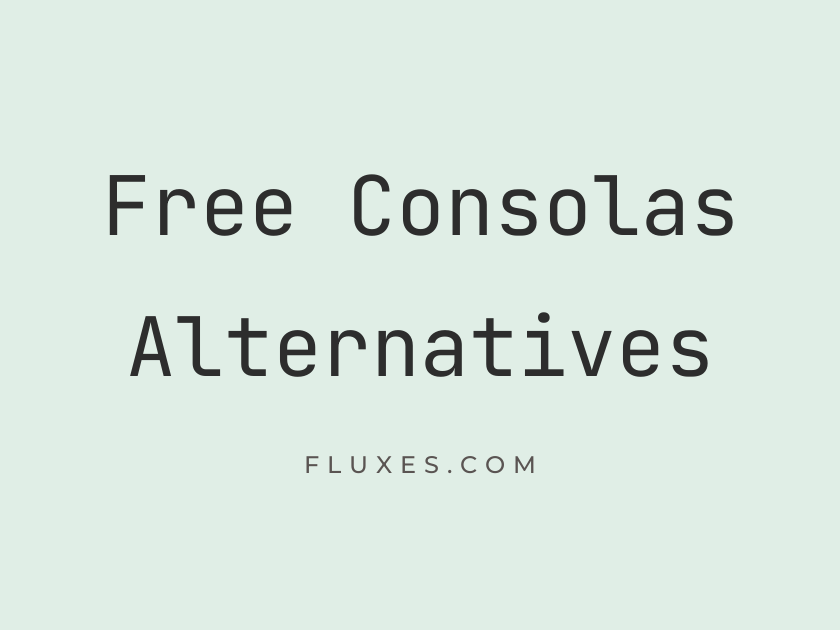
15 Best Free Fonts Alternatives to Consolas
Consolas has been the default fixed-width typeface in Windows code editors and terminals for years, prized for its rounded terminals, generous spacing, and the way it keeps zeros and ones from blurring together at small sizes. It is a Microsoft font, though, which means it is not always licensed for the web, for open-source projects, or for cross-platform tools that need to embed a monospace face freely. The good news is that the monospace category on Google Fonts has matured considerably, and several families now match or exceed Consolas for coding, terminal use, and technical documentation while remaining completely free to download and self-host.
Built by a company that makes IDEs for a living, this face was engineered specifically to reduce eye strain during long coding sessions. The letterforms are slightly taller than average, which opens up vertical rhythm in dense code blocks, and the italics were designed to be genuinely readable rather than just slanted romans. It has quickly become one of the most requested Consolas substitutes among developers switching to Linux or macOS setups.
Fira Code
⚠ Font Specimen: invalid or missing font nameFira Code took the already-solid Fira Mono and added programming ligatures, so arrows, comparison operators, and arrow functions visually merge into single symbols. Not every editor supports ligatures out of the box, so it is worth checking your IDE settings before committing to it project-wide. For teams that do enable them, code reads almost like prose once you get used to the effect.
Source Code Pro
Adobe’s contribution to the monospace space is clean, professional, and a little more restrained than some of the newer geometric options. It pairs naturally with Source Sans Pro or Source Serif Pro in documentation sites, which makes it a practical pick when you need code samples and body text to feel like they belong to the same family.
Part of IBM’s sprawling Plex superfamily, this one carries a slightly technical, engineering-notebook character that suits terminal emulators and developer documentation equally well. The lowercase letters have a touch more personality than most coding fonts, with subtle flares that keep long stretches of text from feeling sterile.
Roboto Mono simply extends the familiar Roboto voice into fixed-width form, which makes it an easy default for Android-adjacent projects or anywhere Roboto is already the body font. It is dependable rather than distinctive, the kind of face that disappears into the work instead of calling attention to itself.
Ubuntu Mono
Distinctive and a little quirky, Ubuntu Mono carries the same rounded, humanist warmth as the rest of the Ubuntu type family. It reads best at larger sizes in terminals and headers; at very small point sizes some of its curves can soften and blur, so test it in your actual terminal before adopting it system-wide.
Inconsolata
One of the earliest breakout stars of open-source monospace design, Inconsolata was built as a refined alternative to the clunky bitmap coding fonts of the early 2000s. Its narrow proportions fit more characters per line than many rivals, which is genuinely useful on smaller laptop screens or split-pane editors.
Cousine
Cousine was designed as a metrically compatible substitute for Consolas itself, matching its character widths closely enough that documents and layouts built around Consolas can swap in Cousine with minimal reflow. That makes it one of the most direct, low-friction replacements on this list for anyone migrating existing files off a licensed font.
PT Mono
Originating from a Russian type foundry’s public-sector typeface program, PT Mono has sturdy, slightly condensed letterforms that hold up well in dense terminal output and log files. It is less commonly seen than the bigger-name coding fonts, which can be an advantage if you want your interface or documentation to feel distinct.
⚠ Font Specimen: invalid or missing font nameSpace Mono brings retro, slightly quirky character to the monospace category, with a squared-off structure that feels more at home in a terminal-themed portfolio or a developer’s personal site than in a corporate IDE. It leans stylistic rather than neutral, so treat it as an accent for headers and short code snippets rather than an all-day editing font.